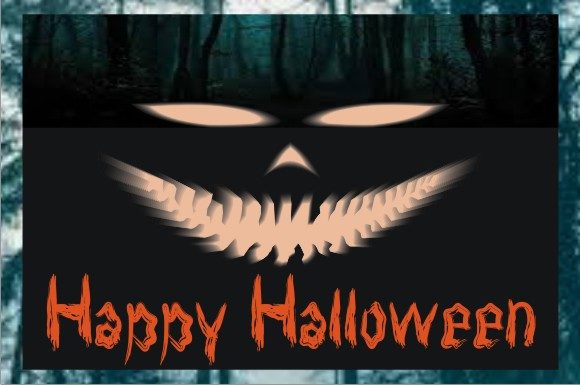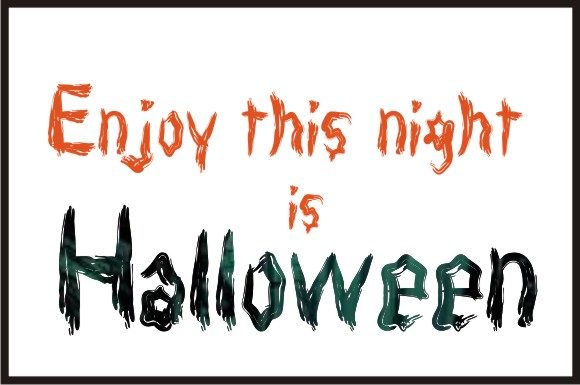
Unleash the Spookiness: Exploring the Dark Trees Font for Halloween Crafting
As the spookiest time of the year approaches, designers and crafters are on the lookout for unique and eerie elements to add a touch of darkness to their Halloween projects. If you’re searching for a font that embodies the spirit of the season, look no further than the Dark Trees Font. This distinctive display font is specifically designed to evoke a sense of spookiness, making it the perfect addition to your Halloween crafting arsenal.
What is Dark Trees Font?
Dark Trees is a one-of-a-kind display font that boasts a hauntingly beautiful design. Its unique lettering style is reminiscent of twisted tree branches, evoking the eerie atmosphere of a dark forest. The font’s distressed texture and irregular shapes add to its spooky charm, making it an excellent choice for creating eye-catching Halloween-themed projects.
Key Features of Dark Trees Font
- Unique Display Font: Dark Trees Font stands out from the crowd with its distinctive design, perfect for creating bold and attention-grabbing headlines.
- Spooky Look: The font’s eerie appearance is sure to send shivers down the spine, making it an excellent choice for Halloween-themed projects.
- Distressed Texture: The font’s distressed texture adds a layer of depth and visual interest, giving your projects a worn and aged look.
- Irregular Shapes: The font’s irregular shapes and twisted lettering style evoke the feeling of twisted tree branches, adding to its spooky charm.
Using Dark Trees Font for Halloween Crafting
Dark Trees Font is an incredibly versatile font that can be used for a wide range of Halloween crafting projects. Here are a few ideas to get you started:
- Halloween Invitations: Create spooky invitations for your Halloween party or event using Dark Trees Font.
- T-Shirts and Mugs: Design eye-catching Halloween-themed apparel and accessories using the font.
- Signs and Posters: Use Dark Trees Font to create bold and attention-grabbing signs and posters for your Halloween decorations.
- Cards and Gift Tags: Add a touch of spookiness to your Halloween cards and gift tags with the font.
Tips for Using Dark Trees Font
To get the most out of Dark Trees Font, here are a few tips to keep in mind:
- Experiment with Colors: Try pairing the font with different colors to create a unique and eye-catching look.
- Add Texture and Patterns: Add texture and patterns to your design to give it an extra layer of depth and visual interest.
- Mix and Match Fonts: Combine Dark Trees Font with other fonts to create a unique and visually appealing design.
| Font Name | Dark Trees Font |
| Author | Gustavo Lucero |
Dark Trees Font is a unique and versatile font that’s perfect for adding a touch of spookiness to your Halloween crafting projects. With its distinctive design, distressed texture, and irregular shapes, this font is sure to make your projects stand out. Whether you’re a designer or crafter, Dark Trees Font is an excellent addition to your font library. So why wait? Unleash the spookiness and get creative with Dark Trees Font this Halloween season!